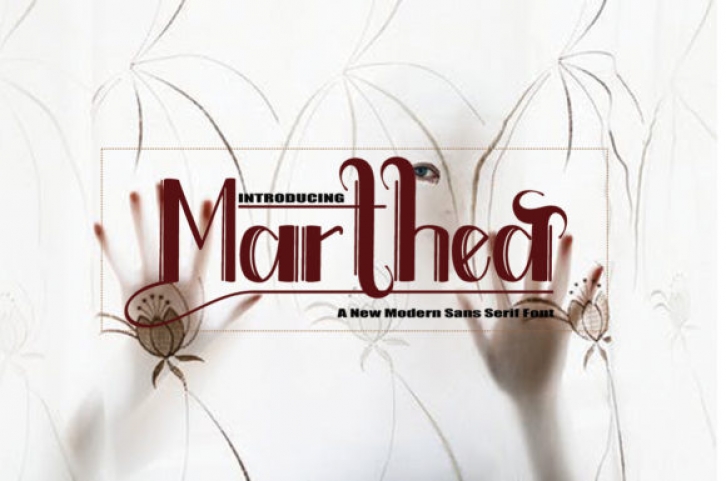
Marthea is a modern display font. With its neat and beautiful arrangement of letters, this typeface will look outstanding in both formal and non-formal designs.